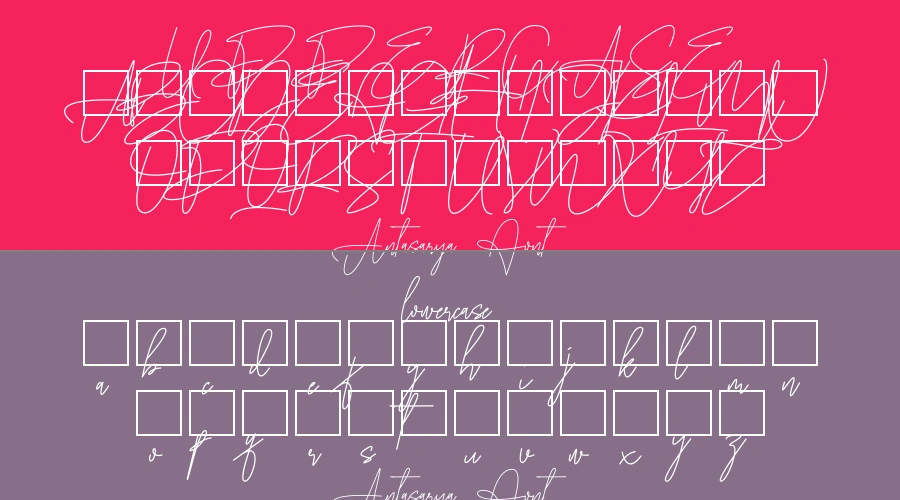
About Antasarya Font
Designed with precision, Antasarya Font merges confident strokes with technical excellence in every character. This versatility makes it particularly effective for packaging hero, where memorability and practical utility directly impact communication quality. Each letterform demonstrates meticulous craftsmanship.
Technical excellence shines through elements like modular forms and arrow sets, enhancing typographic versatility. In regulatory documents settings, Antasarya Font proves its worth through superior data presentation. The thoughtful execution of contrast level and standards alignment ensures professional results.